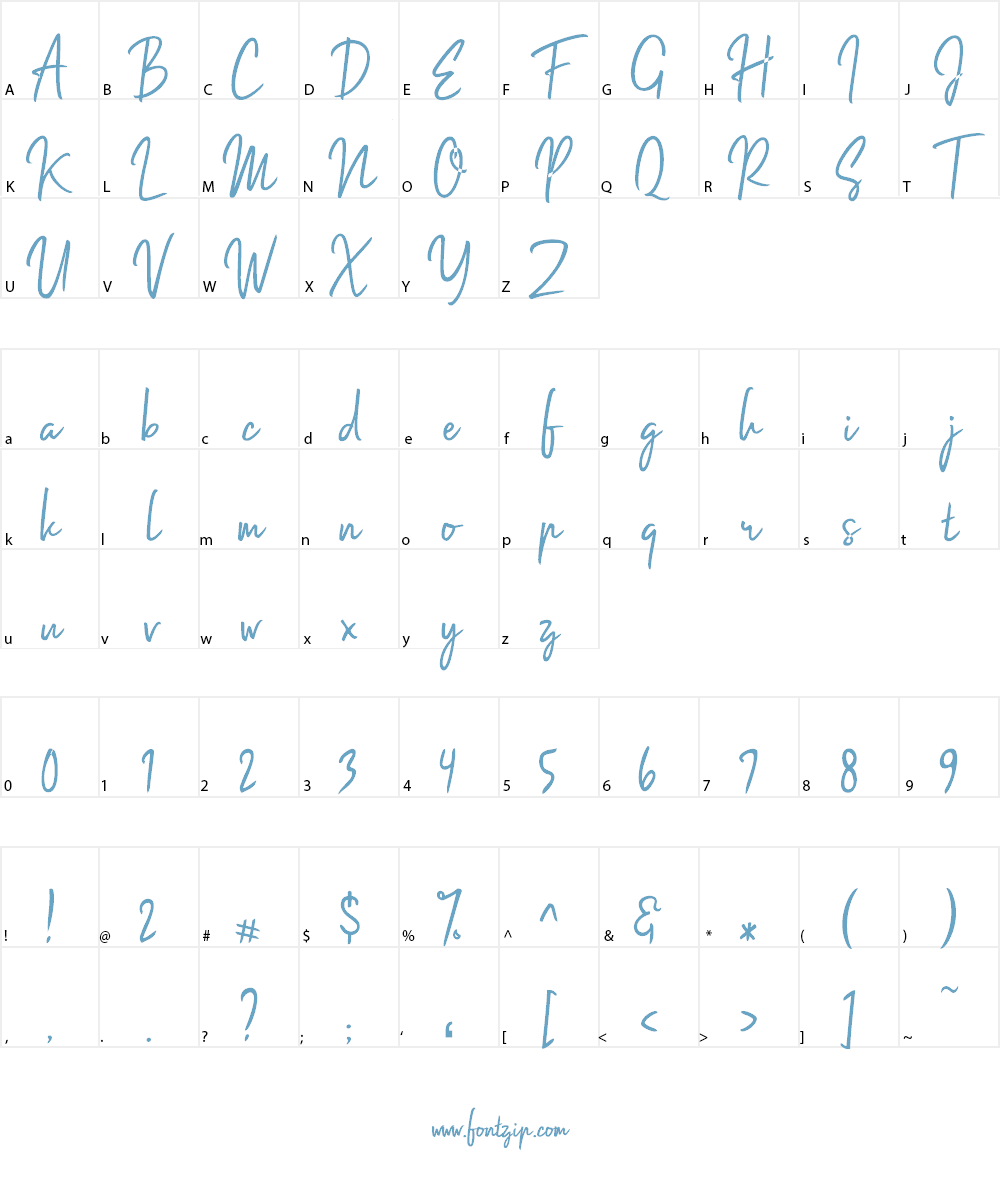
The Foreign is a handwritten font with personal charm . The Foreign has two style reguler and italic is perfect for logos & branding, photography, invitations, watermarks, advertisements, product designs, stationery, labels, product packaging, special events, or whatever for your latest project.